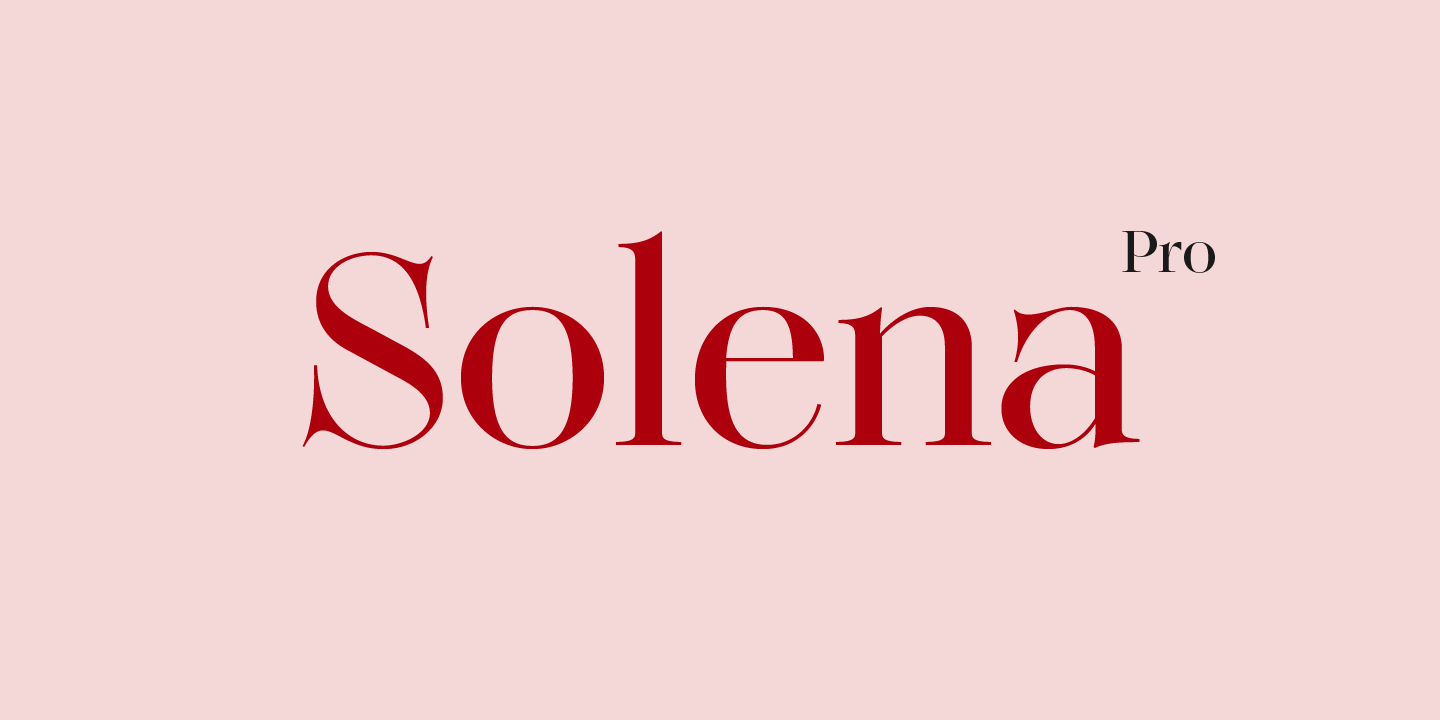
Solena Pro Font is perfect for corporate presentations, professional documents, annual reports, business branding, website interfaces, technical documentation, financial publications, educational materials, and modern office communications. This versatile typeface delivers exceptional performance across both digital and print applications for professional environments.
What makes Solena Pro Font exciting is its professional excellence that combines readability with contemporary design sophistication. The font features optimized letterforms with careful attention to spacing and legibility that ensures crystal-clear communication in any context. Its polished character and reliable performance make it irresistible for businesses seeking trustworthy, professional typography that enhances credibility and brand authority.
The Solena Pro Font family includes comprehensive weights and professional styles: Thin, Light, Regular, Medium, Semibold, Bold, Black, and corresponding Italic variations. Each weight maintains the font's professional character while offering designers complete flexibility for complex document hierarchies and sophisticated brand systems.
Whether you're designing for corporate clients or professional services, Solena Pro Font Free Download provides designers with a reliable, comprehensive typeface solution. The font's professional aesthetics and technical precision make it ideal for law firms, consulting companies, financial institutions, and technology corporations. Its dependable performance ensures your message communicates authority and expertise while maintaining outstanding readability. The extensive character set includes multiple language support, mathematical symbols, and professional ligatures, making it perfect for creating polished documents and brand identities that establish trust and demonstrate professional competence across all business communications.